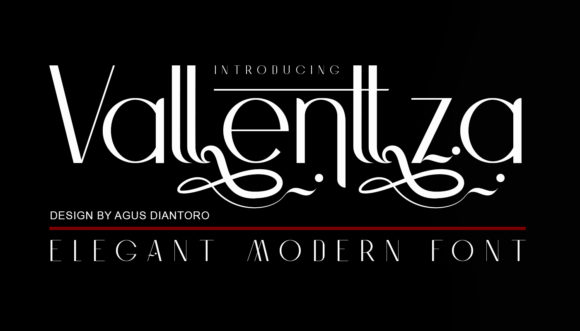
Unleash the Power of Simplicity with **Fontentza**, the Elegant and Modern Typeface Created for Discerning Taste. **Fontentza** is more than just a font; it's an exquisite work of art that brings life to your words. With its carefully crafted glyphs and ligatures, **Fontentza** goes beyond the ordinary to deliver a truly immersive design experience.
Immerse yourself in the beauty of **Fontentza**, a font that captures the allure of modern elegance. Its clean lines and sharp contrast create a visual feast that will make your designs stand out from the rest. From invitations to posters, logos to product placements, **Fontentza** is the perfect font for expressing your unique style and leaving a mark of excellence.
Prepare to be amazed by the brilliance of **Fontentza**, a font that emanates a new level of opulency. Its exquisite detailing and impeccable craftsmanship bring a touch of class to all your design endeavors. Witness the difference as **Fontentza** transforms your projects into the embodiment of beauty.
Step into the realm of elegance with **Fontentza**, the font that rekindles the art of distinctive design. With **Fontentza** by your side, you'll discover a world of creative freedom, where your words and style come alive. It's more than just a font - it's an investment in visual grandeur that will last a life time.